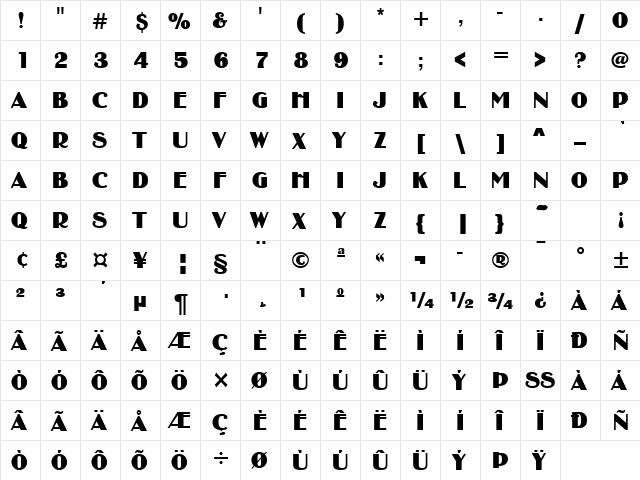
Binner Regular
Design Context for Binner Typeface
Binner takes a measured approach to typography — its balanced proportions and neutral character make it a reliable workhorse for both digital and print work.